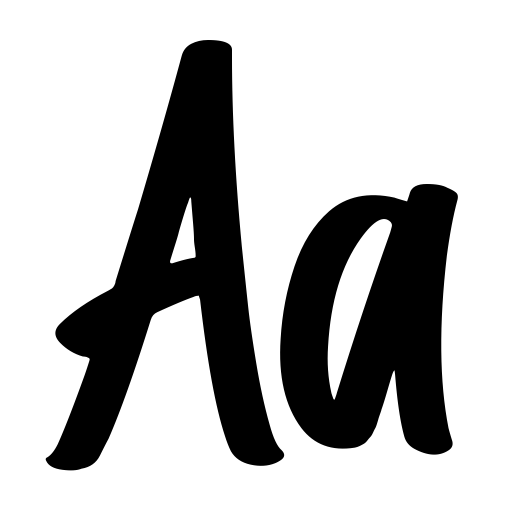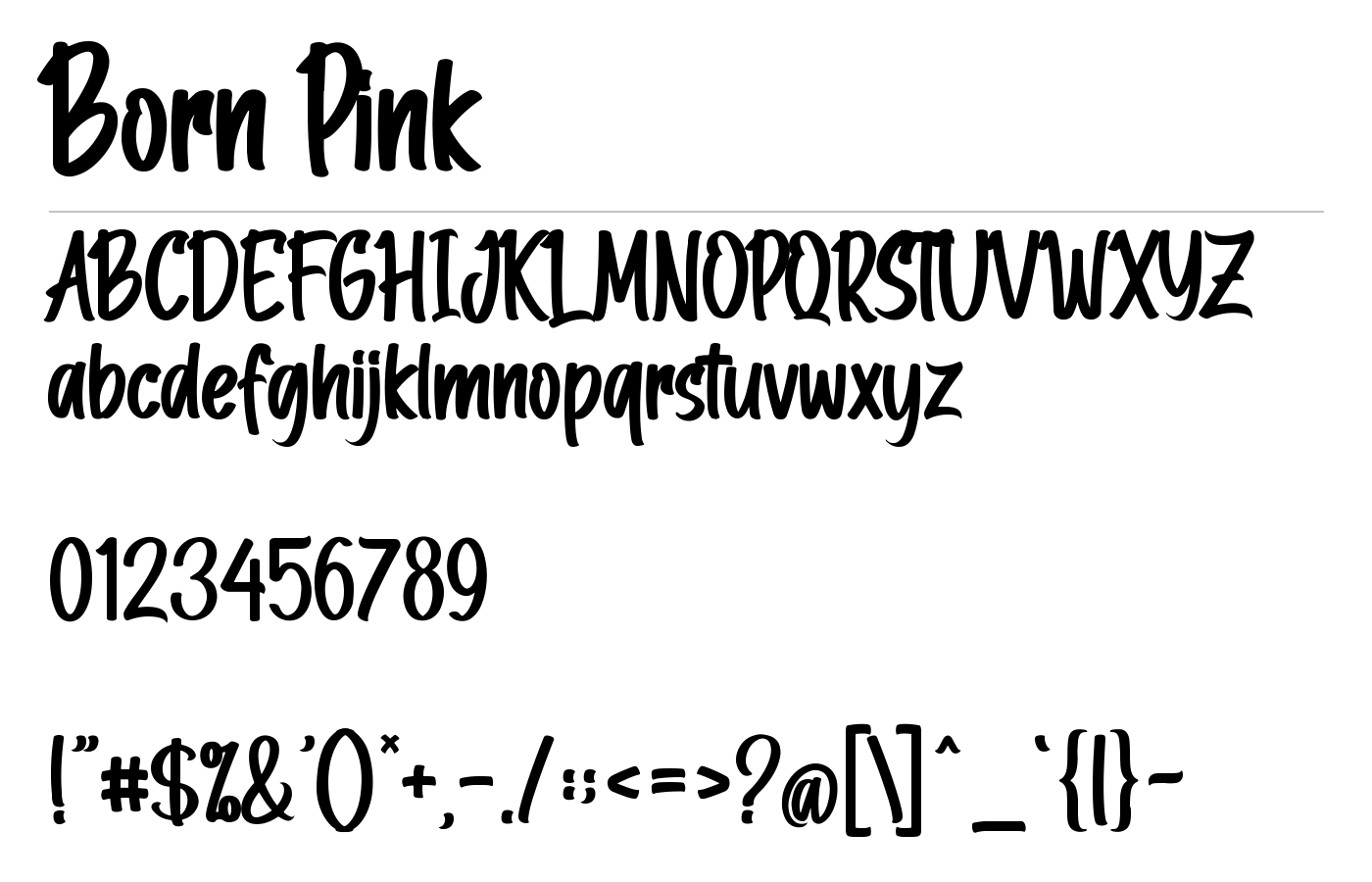
Born Pink is a lively, casual script font with a friendly and approachable vibe. Its upright, slightly condensed letterforms feature smooth, rounded strokes with medium contrast, giving it a playful yet clear appearance perfect for informal branding, headlines, and creative projects. This font works well where a personal, hand-drawn feel is desired, adding warmth and charm to logos, packaging, and eye-catching designs.
Born Pink Font
About Born Pink Font